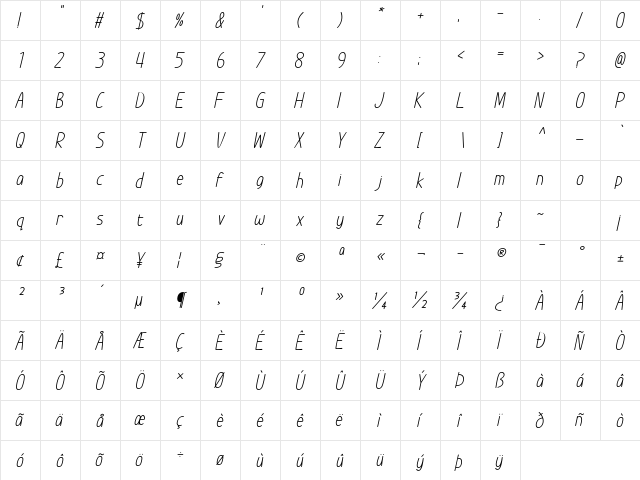
Im Wunderland Italic
Design Context for Im Wunderland Typeface
Im Wunderland offers clean, dependable letterforms without strong stylistic allegiance, making it a practical choice for designers who need flexibility. The slanted form adds forward momentum and visual energy.
Pro Tip: Try Im Wunderland for annotation and caption copy alongside an upright companion — the contrast in angle creates a dynamic but ordered typographic system.